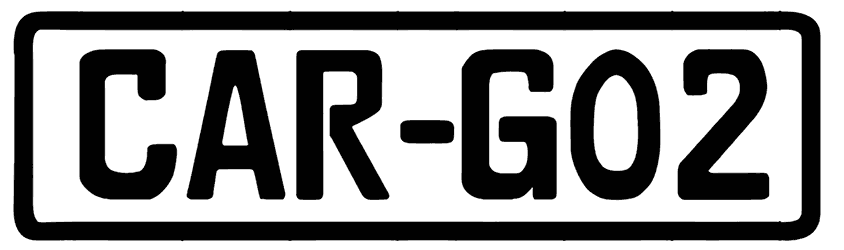
Car-Go 2 Font
Bold your words and positively receive your audience’s attention with Car-Go 2. Without lowercase support, this license plate font has a modest letterform of uppercase letters in two versions, regular and boxed. Car-Go 2…
Bold your words and positively receive your audience’s attention with Car-Go 2. Without lowercase support, this license plate font has a modest letterform of uppercase letters in two versions, regular and boxed. Car-Go 2 will add an old-style but unique mood to texts in many designs, such as wordmarks, posters, packaging, and the rest.
This is the German FE-Schrift used on German number plates.